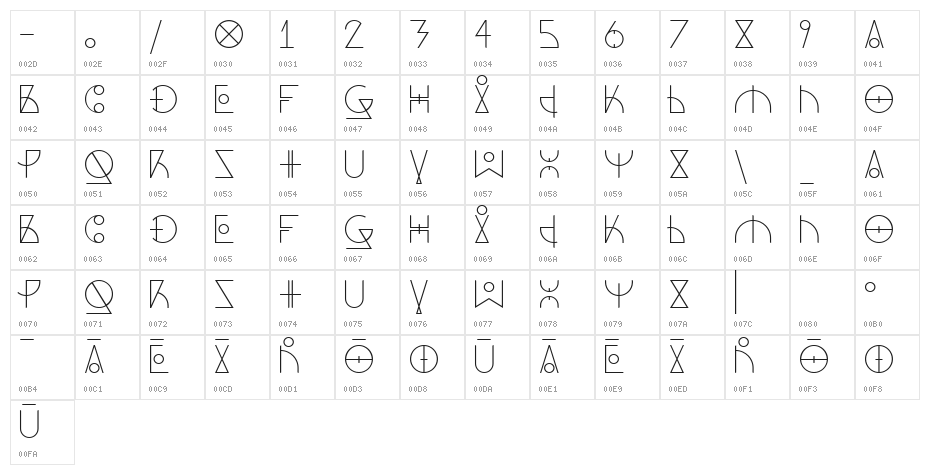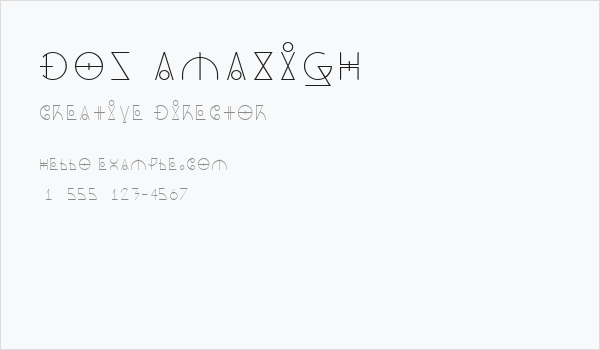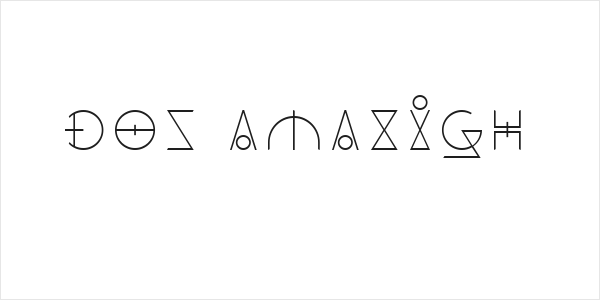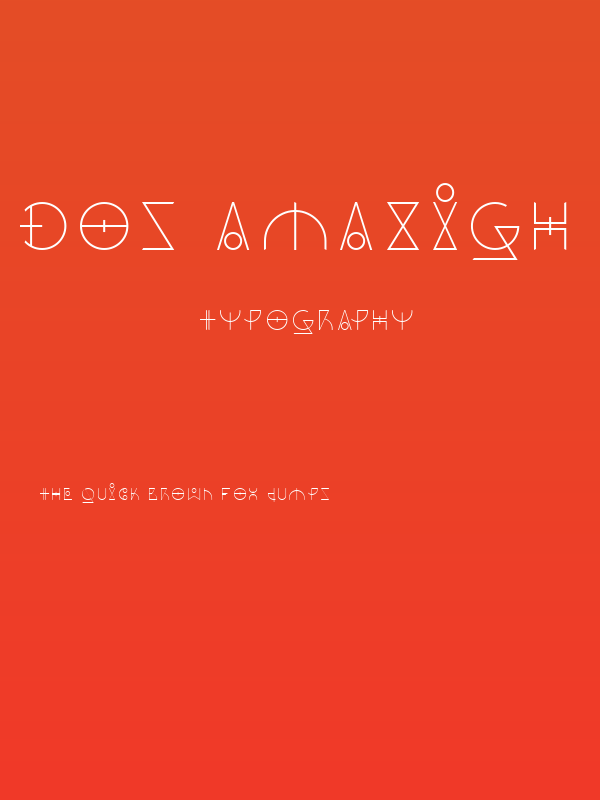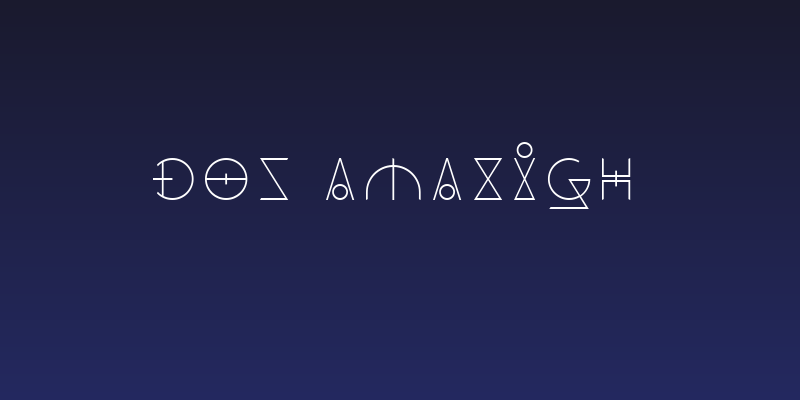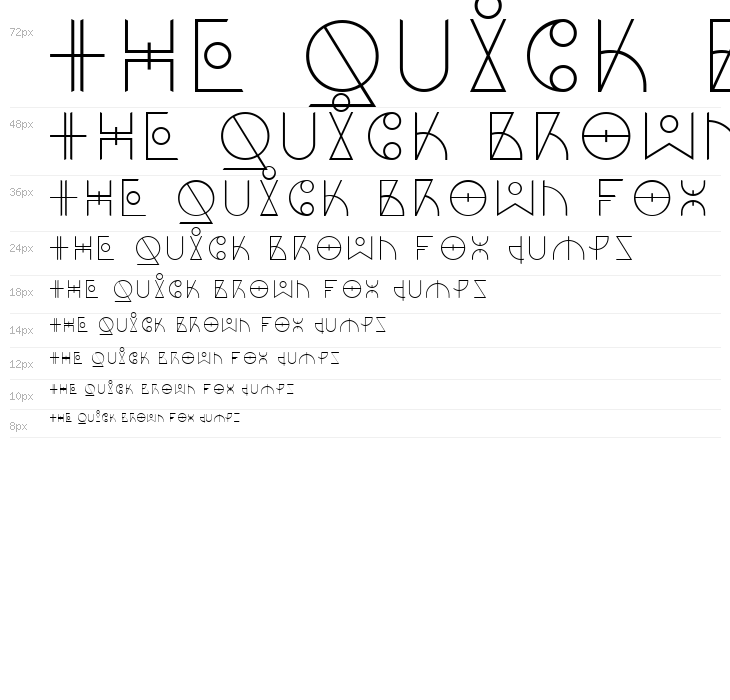
Dos Amazigh Font
Dos Amazigh Description
This font features a unique and artistic design, incorporating geometric shapes and lines to create a distinct visual style. The characters are constructed with a combination of circles, triangles, and straight lines, giving them a modern and abstract appearance. The uppercase and lowercase letters share similar design elements, maintaining consistency throughout the font. Numbers and special characters are also designed with the same geometric approach, ensuring a cohesive look. The overall style is both decorative and contemporary, making it suitable for creative and artistic projects.
| Use Case | Logos, Posters, Artistic projects |
| Proposed Projects | Ideal for branding, logos, posters, and artistic projects that require a modern and unique aesthetic. |